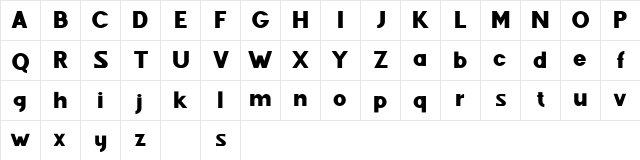
Fenord Free Regular
Design Context for Fenord Free Typeface
Fenord Free offers clean, dependable letterforms without strong stylistic allegiance, making it a practical choice for designers who need flexibility.
Pro Tip: Use Fenord Free in both headline and body roles to test its range before committing to a single application.